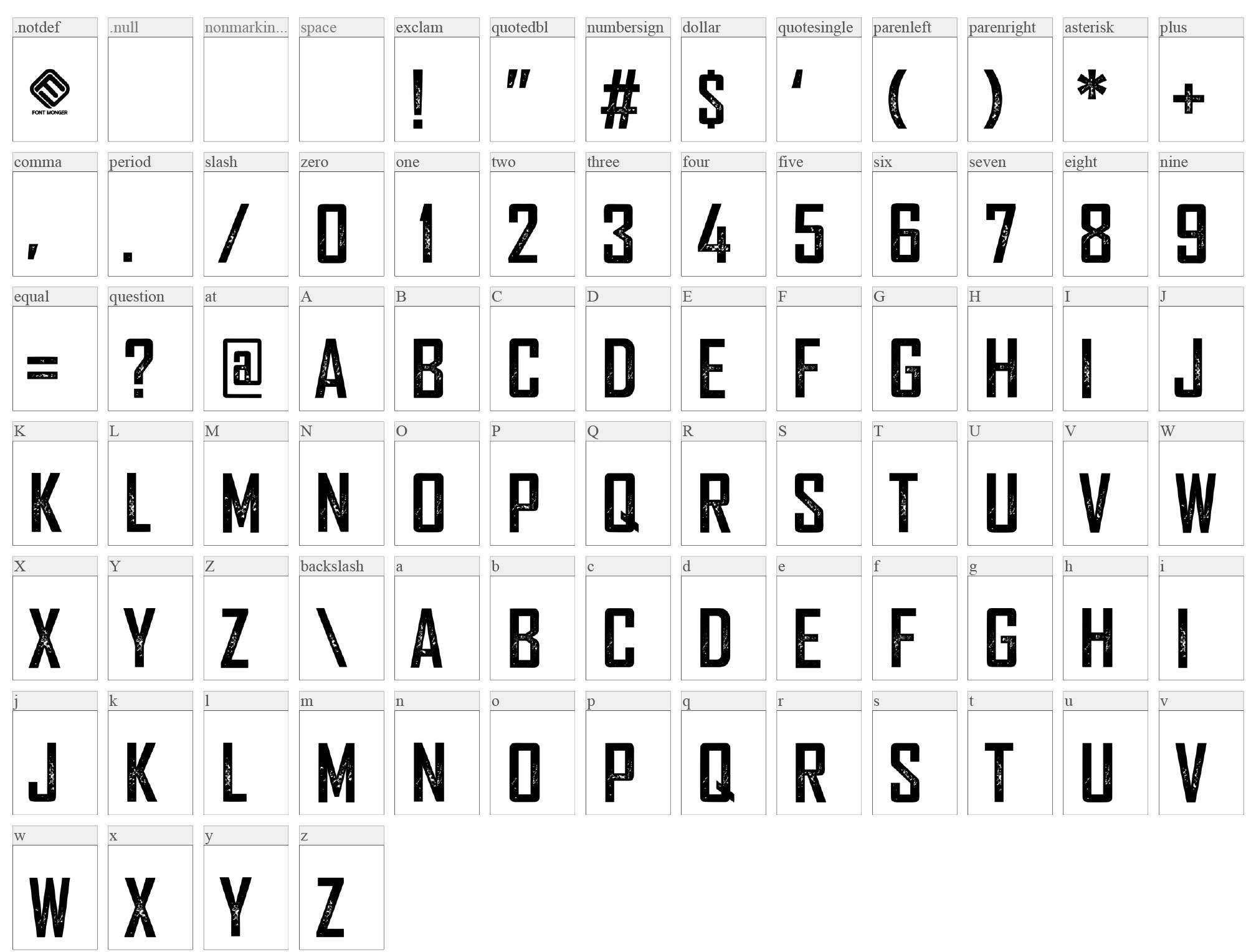
We are depraved is a edgy and professional style font. It can be used for any project ranging from movie posters to corporate and business logos and marketing material.